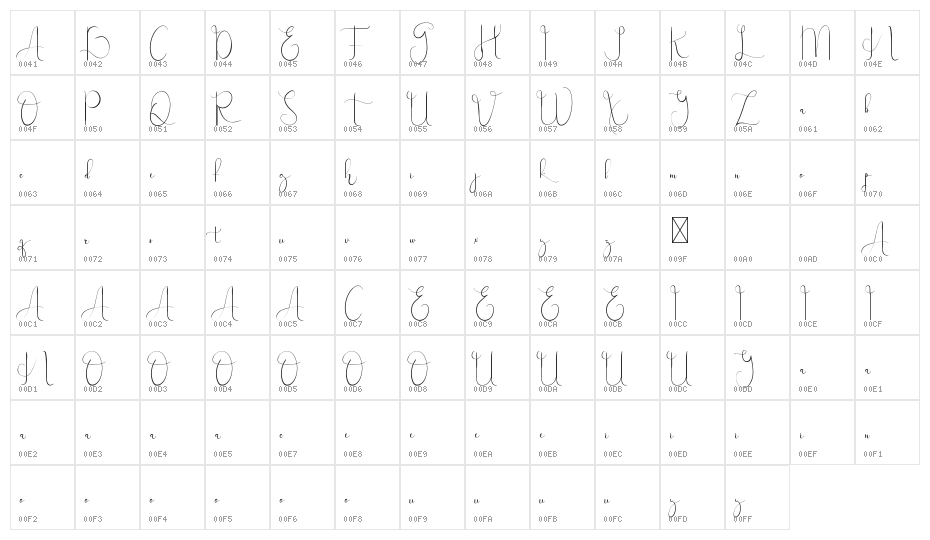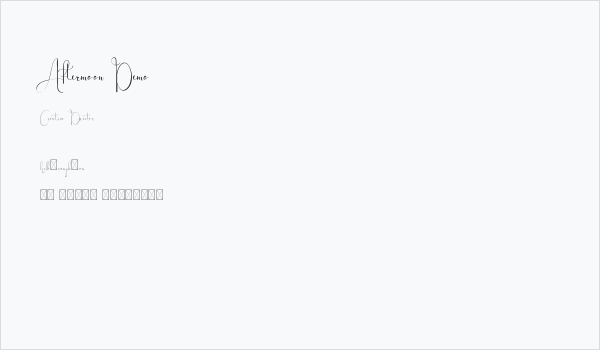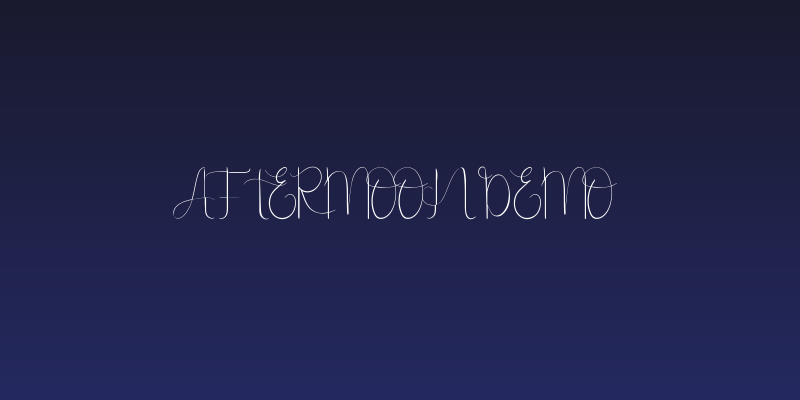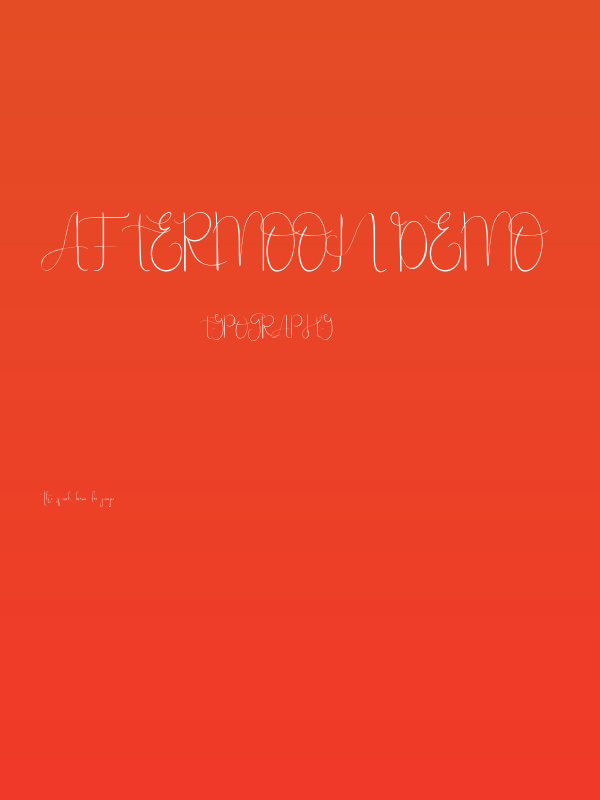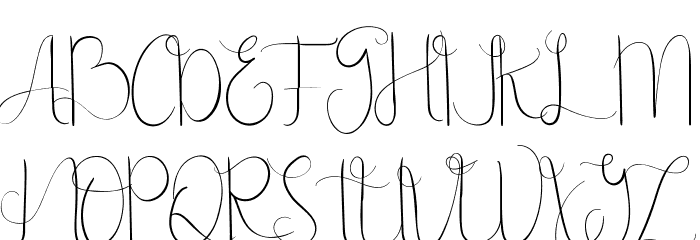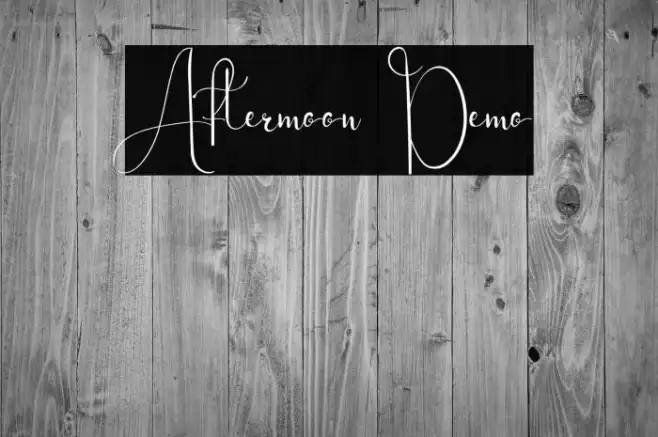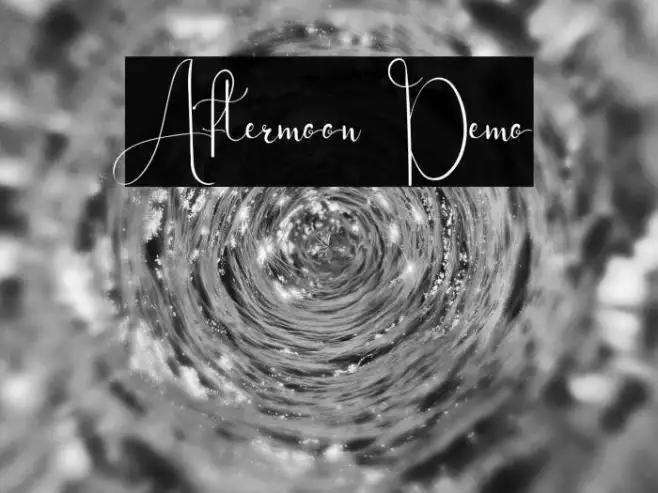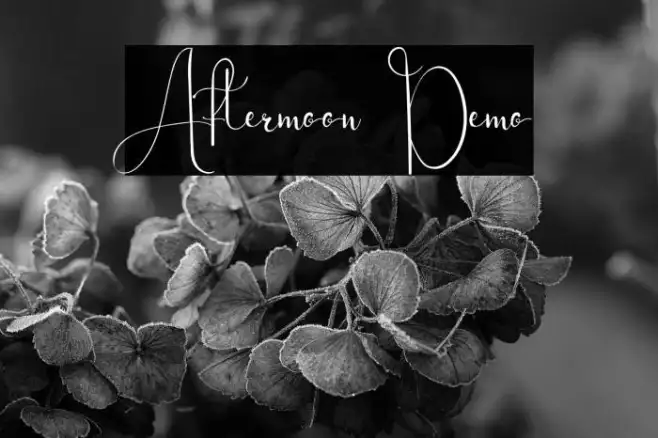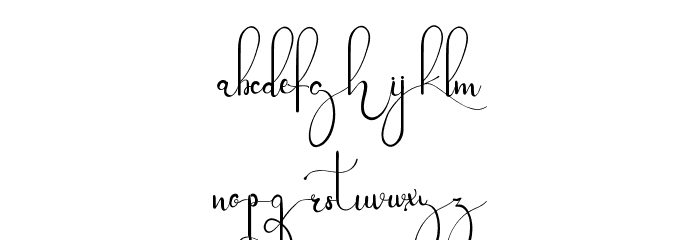
Aftermoon Demo Font
Aftermoon Demo Description
This font is an elegant and decorative script style characterized by its flowing, interconnected letterforms. The uppercase letters are particularly ornate, with elaborate loops and swirls that give a sense of movement and grace. The lowercase letters maintain a consistent style, with some variations in stroke thickness that add to the overall aesthetic. The font has a whimsical and artistic feel, making it suitable for creative and expressive design projects. Its unique style is both sophisticated and playful, offering a distinctive look that stands out.
| Proposed Projects | Ideal for wedding invitations, greeting cards, branding, and artistic posters. |